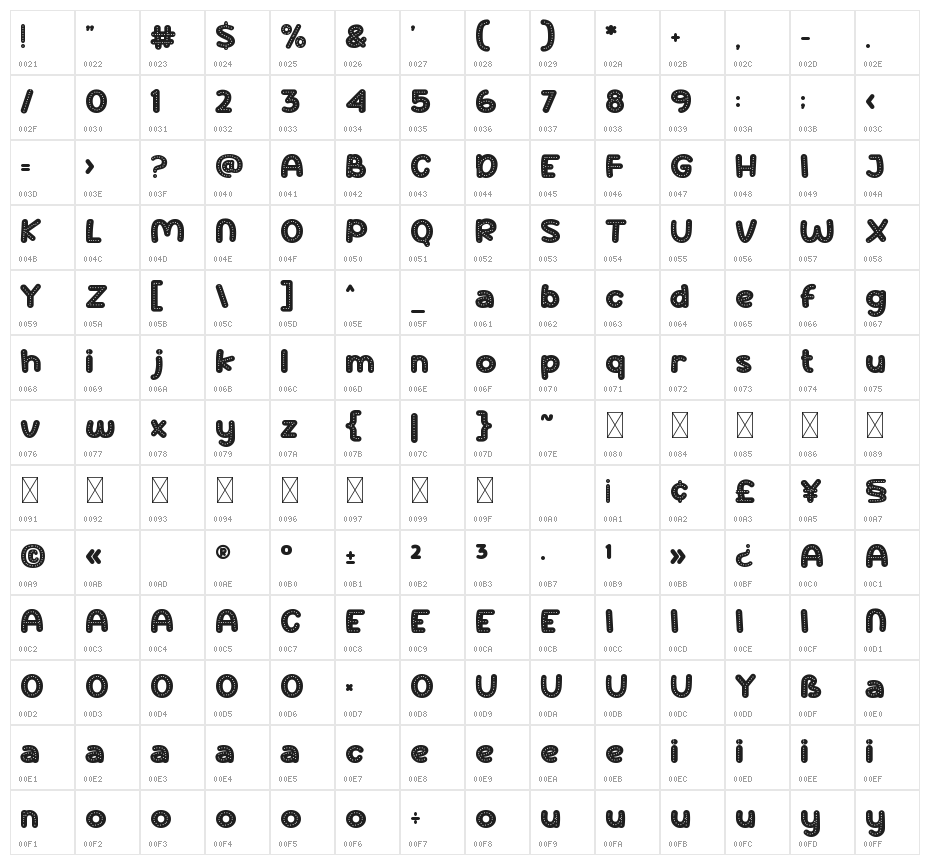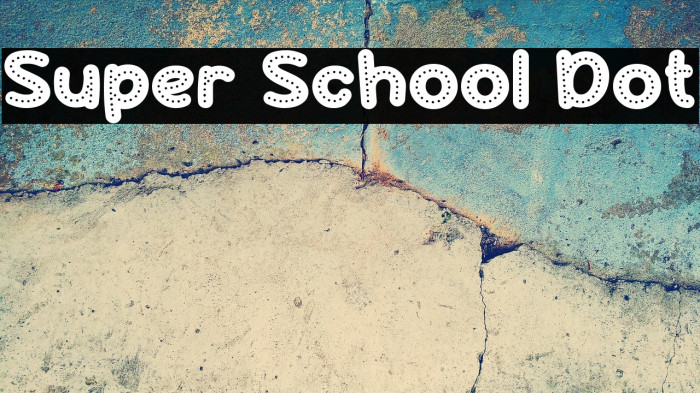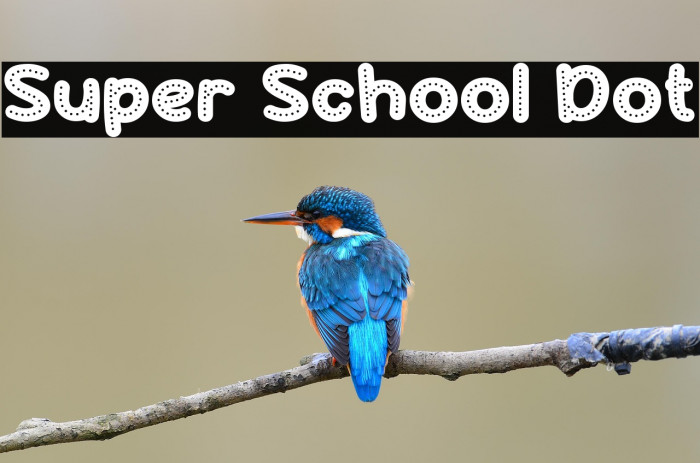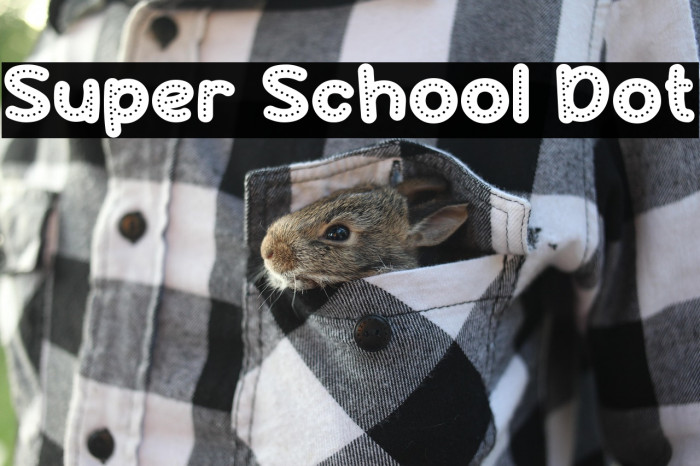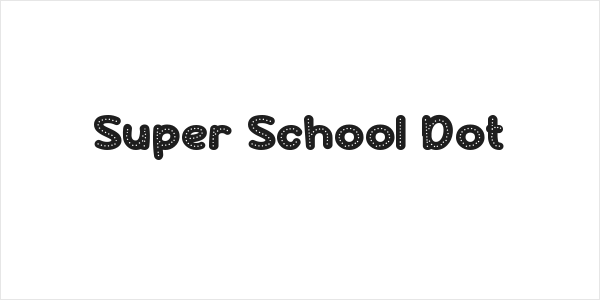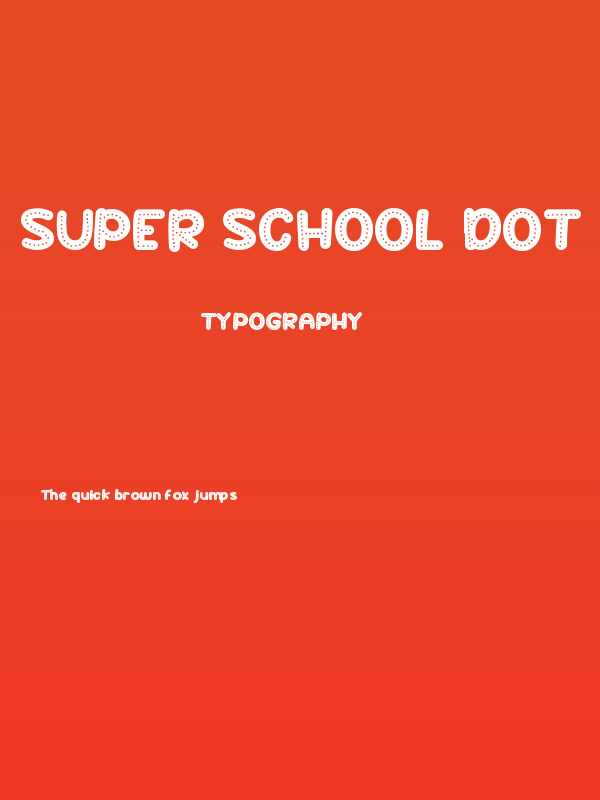
Super School Dot Font
Super School Dot Description
This playful and decorative font features a bold, rounded style with a unique dotted pattern along the edges of each character. The dots add a whimsical and fun element, making it stand out for creative projects. The font maintains a consistent thickness throughout, ensuring readability while still providing a distinctive look. Its rounded edges and uniform dot spacing give it a friendly and approachable feel, suitable for a variety of informal and lighthearted applications.
| Proposed Projects | Ideal for children's books, educational materials, playful branding, party invitations, and creative posters. |